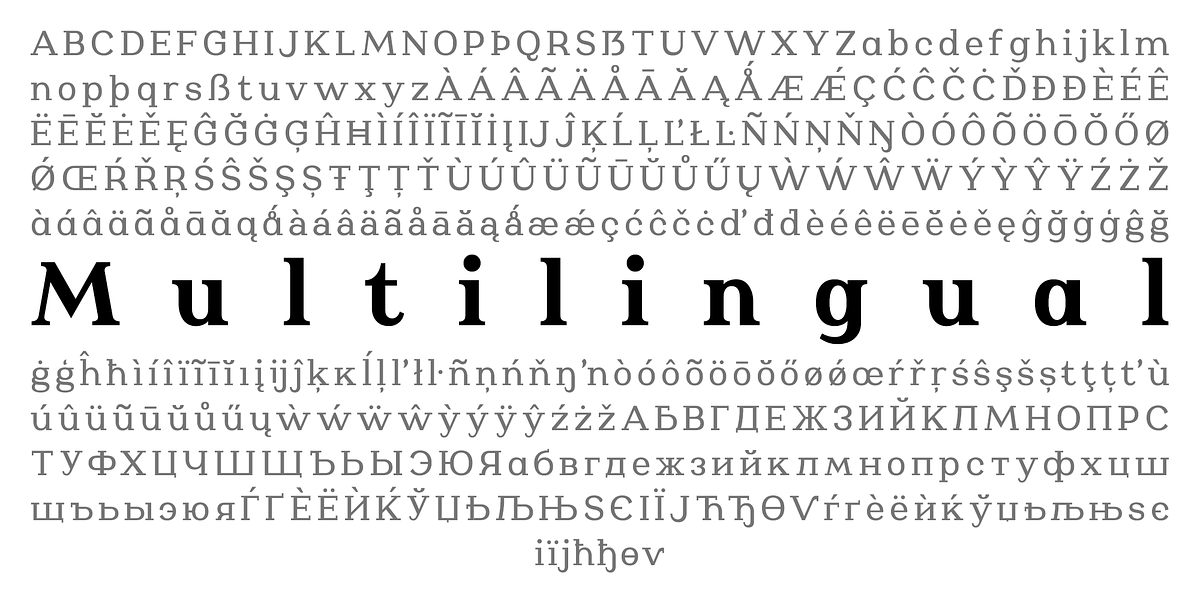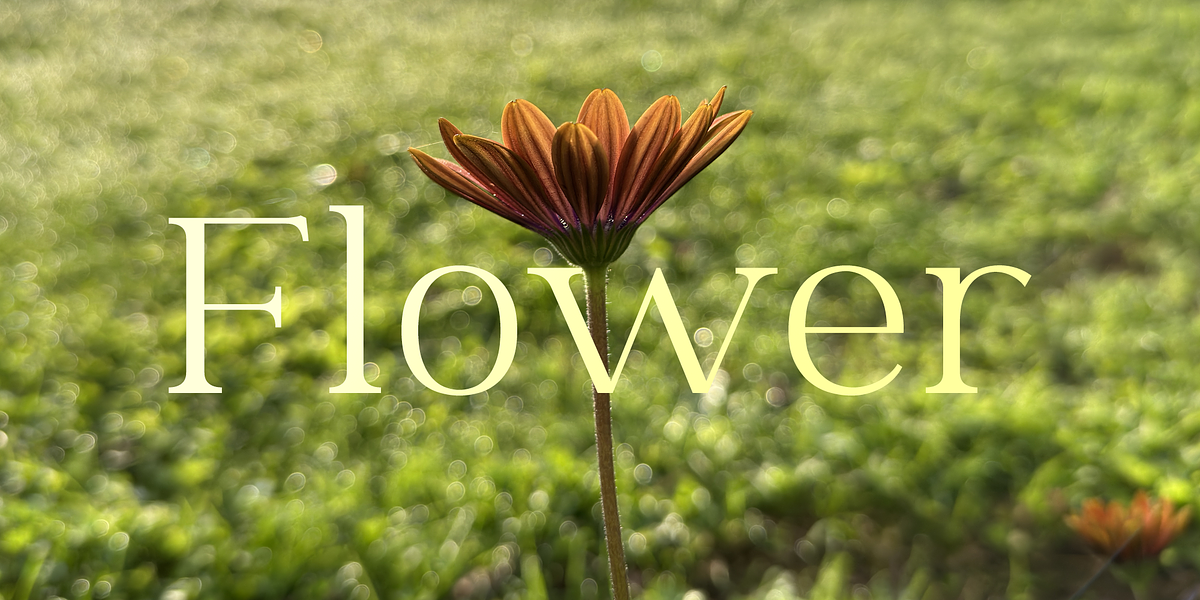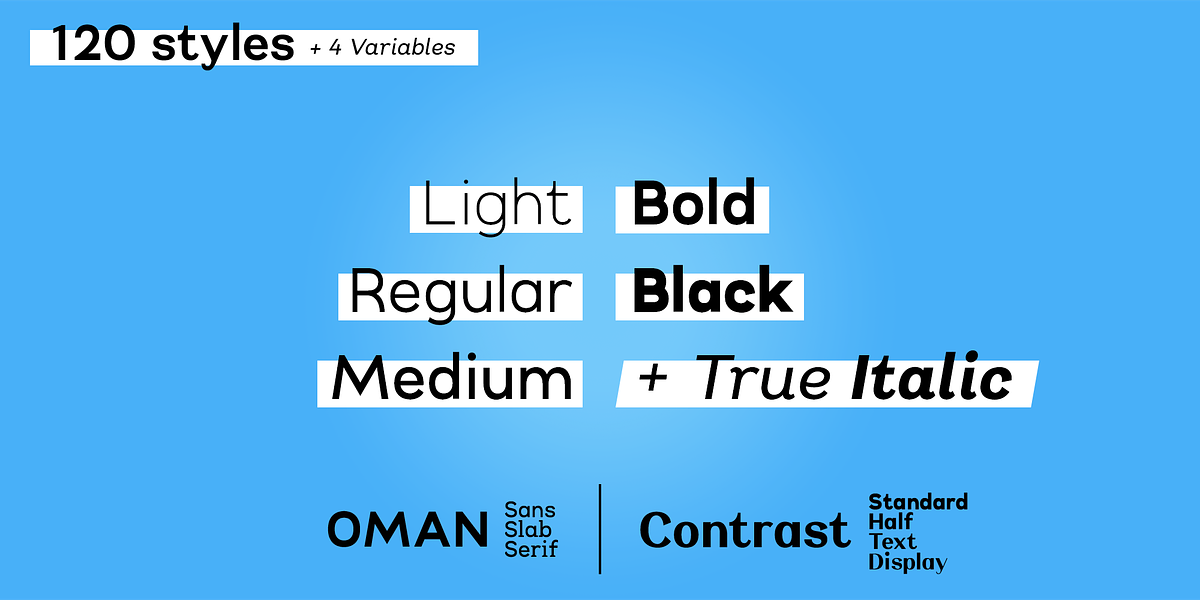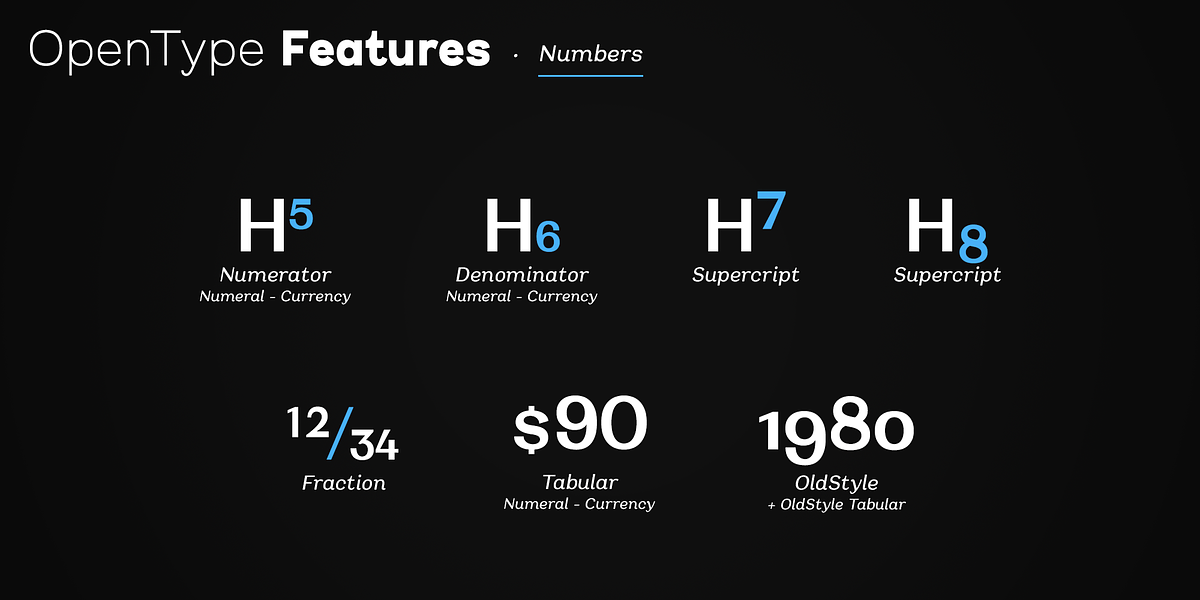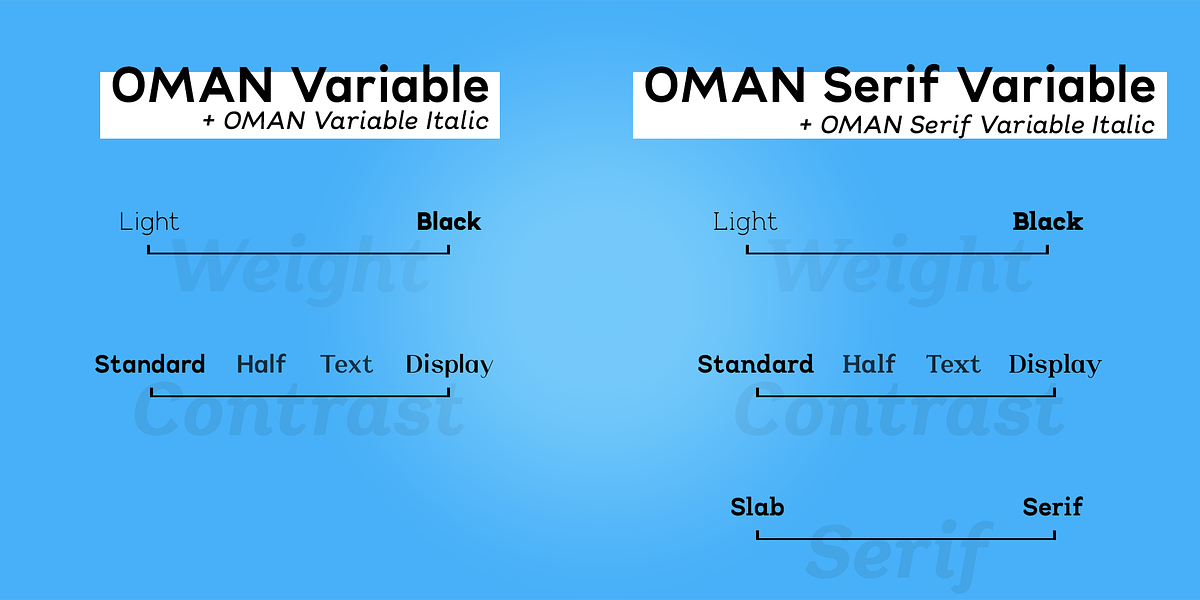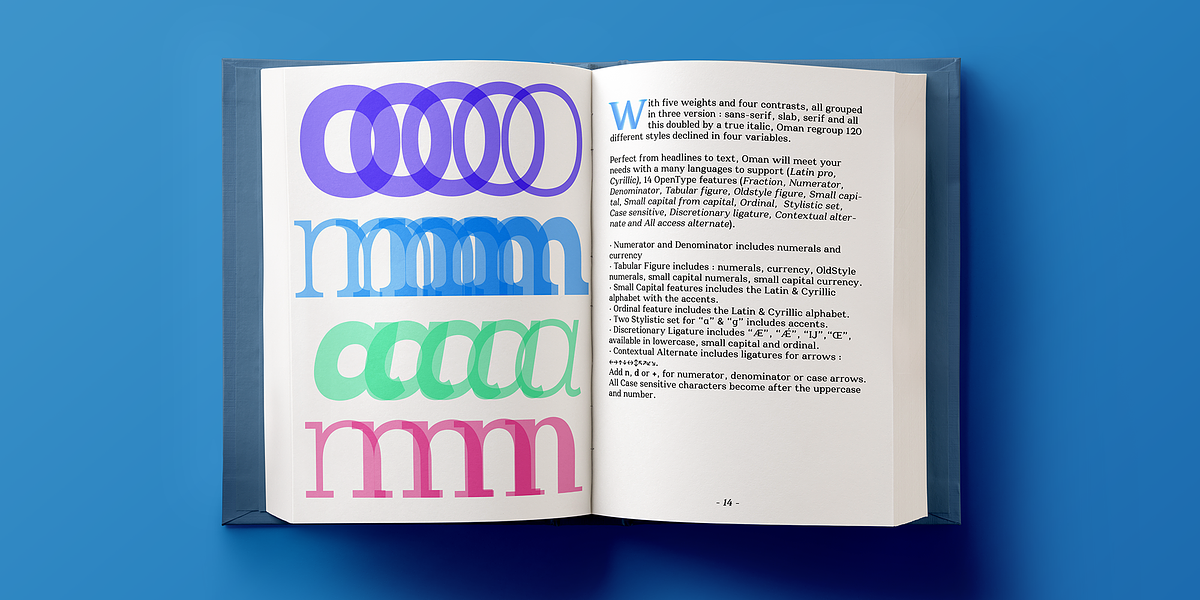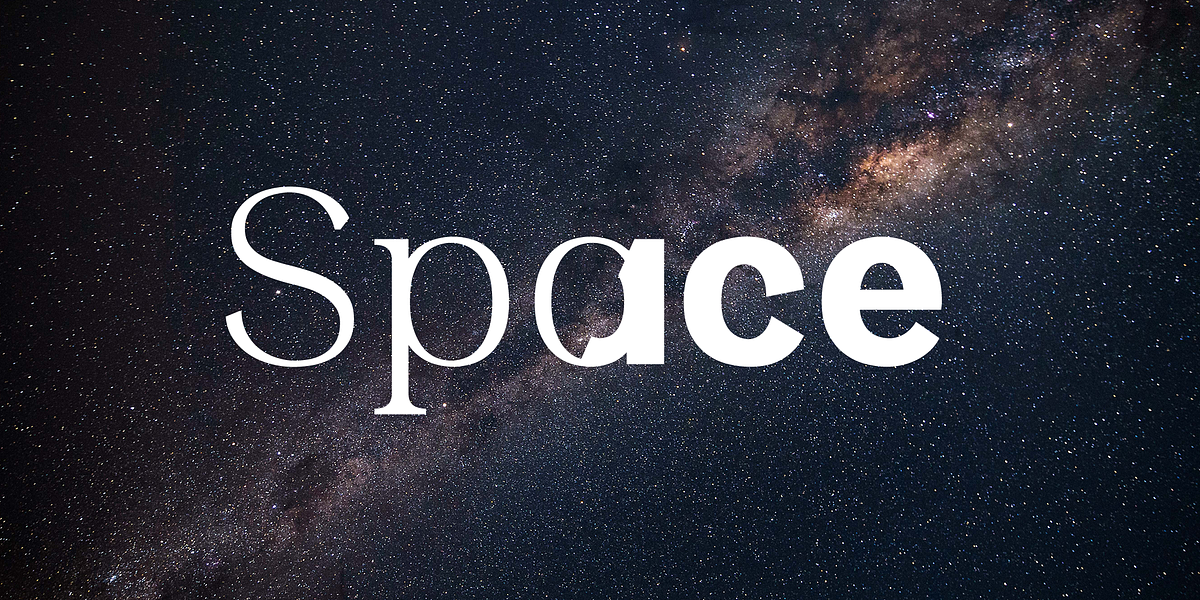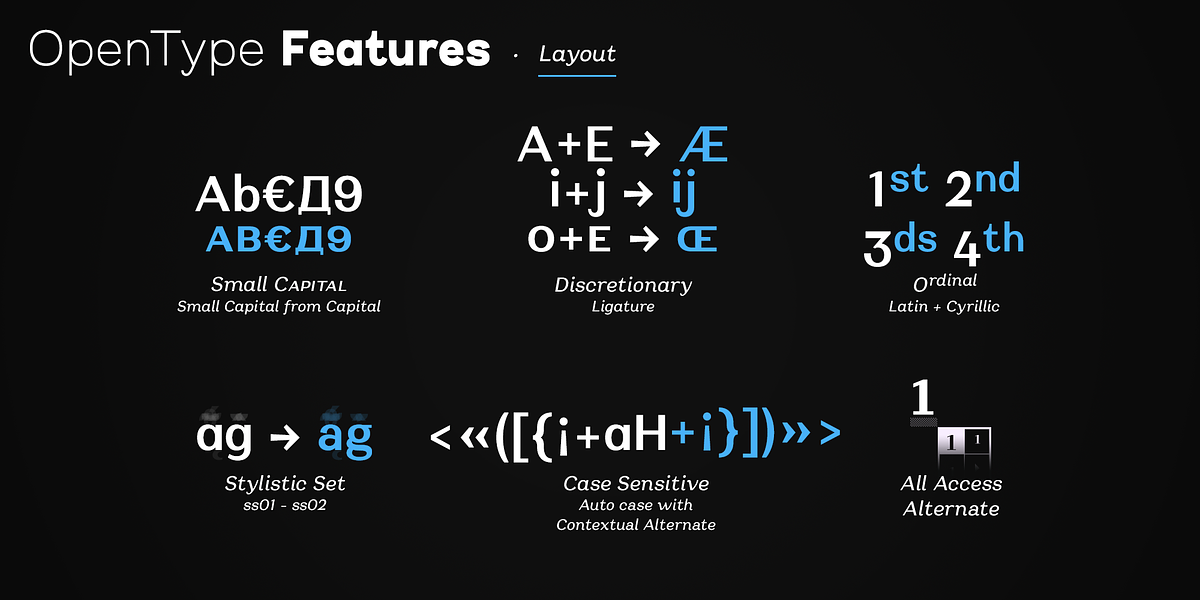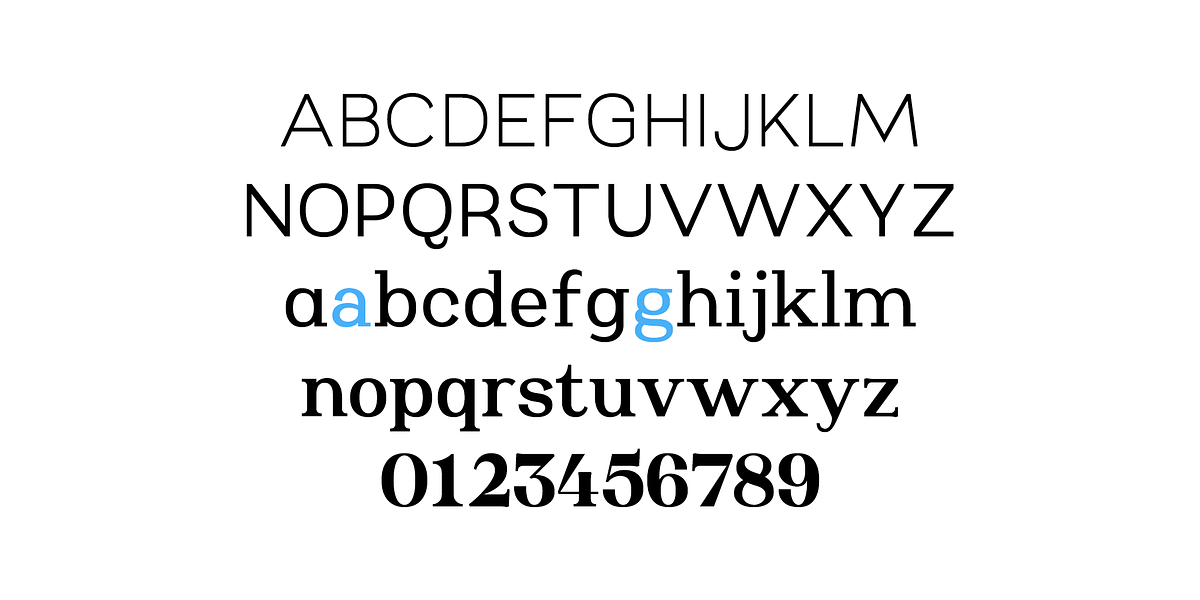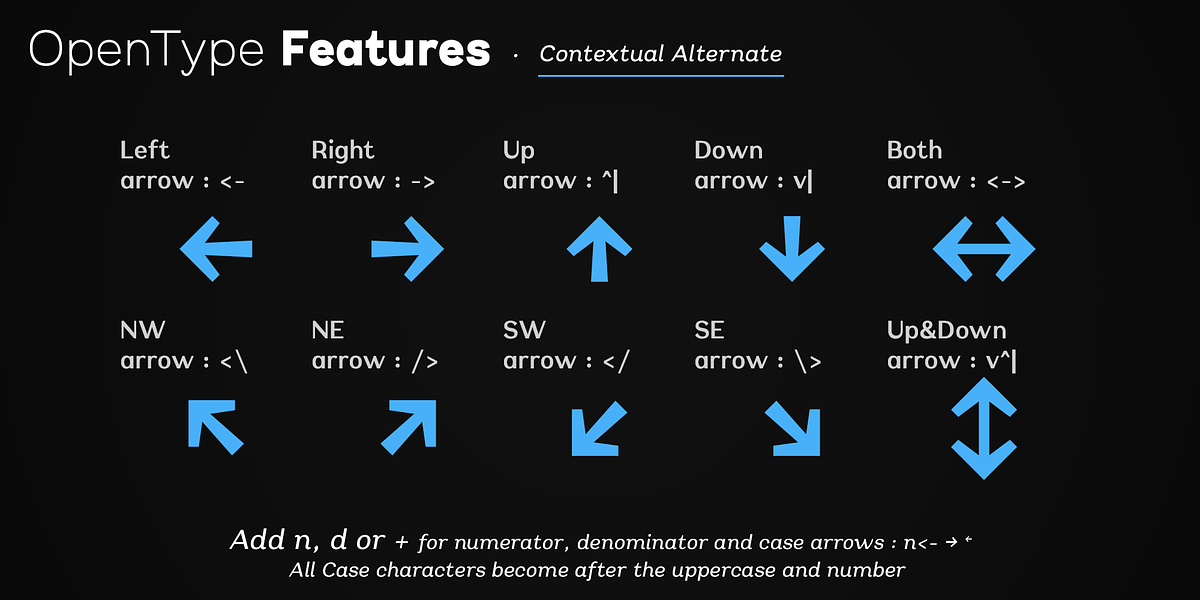
Oman
Oman is a versatile modern serif typeface designed for both display and text use. It offers a range of weights from light to black, as well as multiple widths, allowing for diverse applications. With its elegant and legible design, Oman is suitable for headlines, body text, branding, and more. The font boasts extensive OpenType features, including contextual alternates, stylistic sets, discretionary ligatures, and support for Cyrillic and Latin languages. This makes Oman a powerful tool for designers seeking a refined and adaptable typeface.